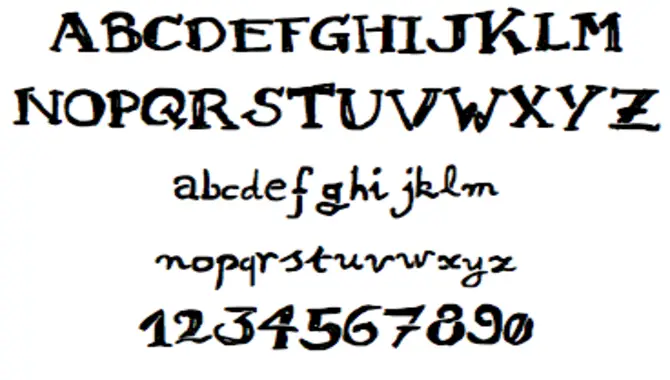
Captcha fonts are all the rage right now. And for a good reason. They’re a great way to ensure your website users are human and not robots.
Bots tend to ignore non-human inputs, so you can rest assured that people see your content when encountering a Captcha. Many modern websites rely on Captcha fonts to ensure that only humans view their content. But knowing how to use them is an art, and many people still don’t get it right.
Here we’ll discuss everything you need about captchas and the benefits of using unique captcha fonts for your website conversions. After reading this blog, you’ll be able to find out if using a Captcha font is right for your website or if there is another option available.
What Is A Captcha Font?
CAPTCHA is a security measure that helps differentiate between human and computer access to a website. It consists of distorted images of letters and numbers that humans have to decode to gain access. These images are called Captcha Fonts, and they play a vital role in the effectiveness of CAPTCHA.
CAPTCHA is a prevalent tool used across the web by different platforms, including Open Cart forums and Google, to strengthen the security around sensitive account access points. Professor Jason Polakis has researched the complexity of CAPTCHA and concluded that it is an effective tool for preventing undesirable website access.
Choosing the perfect Captcha Font can significantly impact the efficacy of a CAPTCHA system. The said font needs to be clear, easy to read, and understandable across different devices. The font size, line thickness, and color scheme are crucial in achieving a successful CAPTCHA system. In conclusion, CAPTCHA Fonts may look simple, but their impact on website security is irrefutable.
Tips For Finding The Perfect Captcha Font
CAPTCHA, the commonly used security tool, helps prevent unauthorized access to online services. The font used in CAPTCHA plays a vital role in its effectiveness. Choosing the wrong font can make CAPTCHA easy to solve, allowing bots to sneak in. Google and other sensitive sites have extensively used CAPTCHA to protect against unauthorized login attempts.
Finding the perfect CAPTCHA font is critical; the right font makes all the difference. Choose a font that is easy to read yet tough enough for bots to decode. It should be legible, have clean edges, and avoid confusing characters such as “o” and “0”. Ultimately, the chosen font should make life difficult for bots while remaining easy to recognize for humans.
Examples Of Great Captcha Fonts
Captcha fonts are essential to website security, and selecting the right one can be challenging. Captcha prevents automated bots from accessing your website by requiring human confirmation. One popular platform with a built-in Captcha feature is the Open Cart Community Forum. MT Admin can customize the character length of Captcha based on website-specific requirements.
Google Fonts makes a font available that looks like Captcha, allowing users to differentiate easily. The font can also be tweaked to appear more like a traditional Captcha by adjusting the letter spacing and increasing the overlapped area’s intensity. Ultimately, the choice of font depends on the specific needs of the website and how it fits into the overall design.
Tips For Using The Perfect Captcha Font
Finding the perfect CAPTCHA font can be tricky because the algorithm has to be complex enough to stump bots while still being easily read by humans. Online forums are filled with discussions about the best fonts and styles to use for CAPTCHA, but ultimately, it depends on the individual user’s preferences.
CAPTCHA is an effective tool for preventing unauthorized access to sensitive accounts like bank accounts and credit cards. Google uses CAPTCHA to increase security around sensitive account access points. However, some users may have difficulty viewing CAPTCHA images. If this occurs, users can seek help from Google’s support services for assistance. The key to a perfect CAPTCHA font is striking the right balance between complexity and readability.
What Are The Benefits Of Using A Captcha Font?
Using a Captcha font is highly beneficial to protect your website from unwanted access. Captcha requires users to prove they are humans and not bots. Captcha fonts are also used for password recovery. Google uses Captcha to secure sensitive account information from hacking attempts. While Captcha can be disruptive and frustrating for some users, the benefits outweigh the inconvenience.
However, as the complexity of the Captcha algorithm increases, it can also become difficult for both humans and machines to solve. The key to finding the perfect Captcha font lies in balancing difficulty with accessibility so that the majority of users can solve the puzzle while keeping bots at bay.
Are There Any Disadvantages To Using A Good Captcha Font?
Using captchas can be a double-edged sword – on the one hand, they can be an effective tool against bots and spam, but on the other hand, they can negatively impact the user experience. Captcha images can be difficult to recognize, even for humans, let alone bots.
- Alternative solutions to CAPTCHA include utilizing images or videos instead of distorted letters and numbers.
5.How Can I Create My Own Captcha Font?